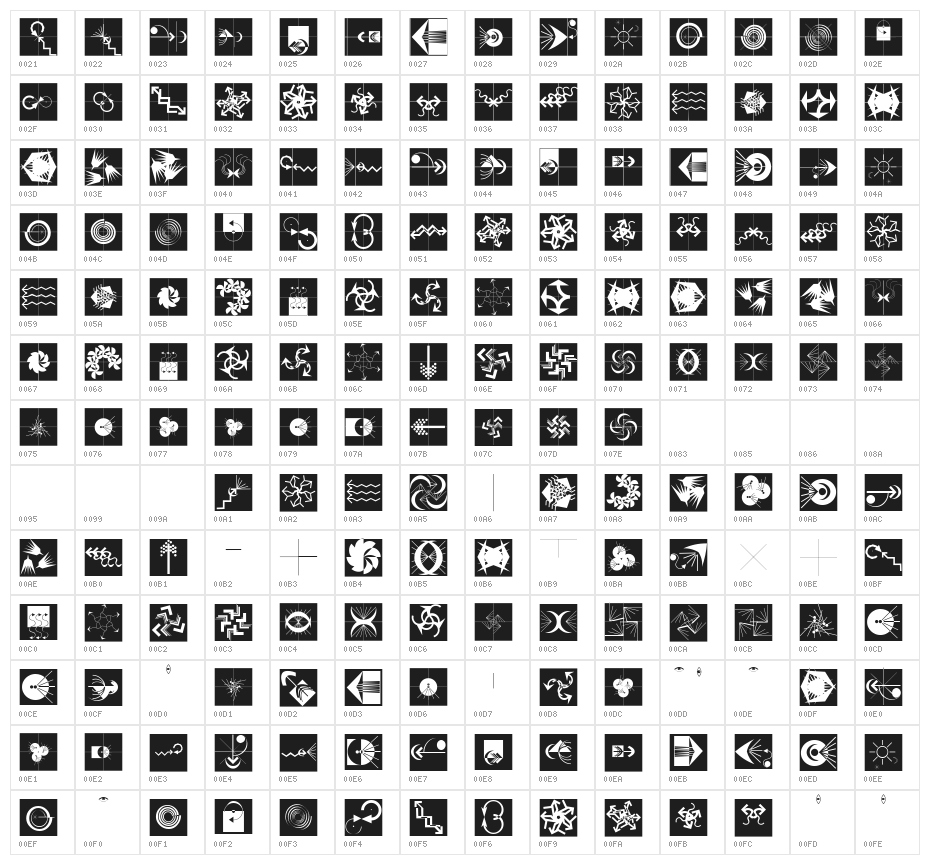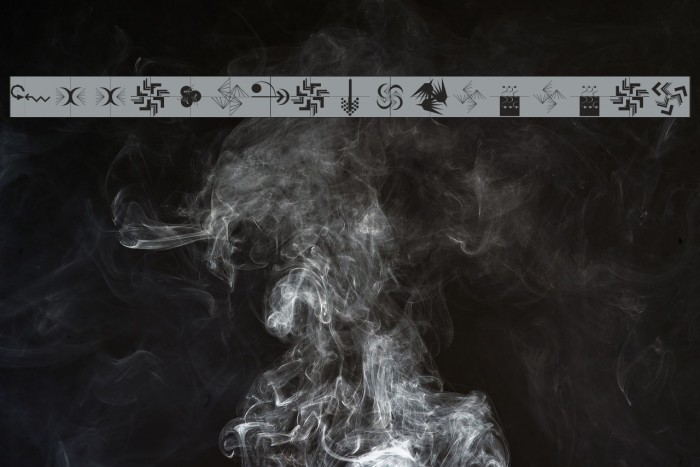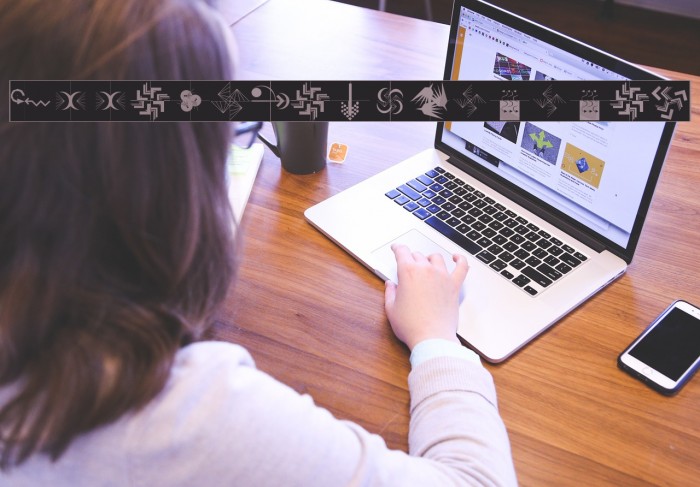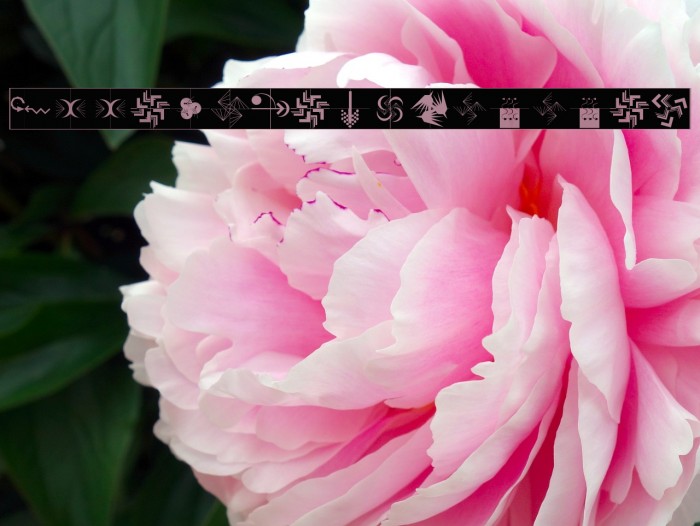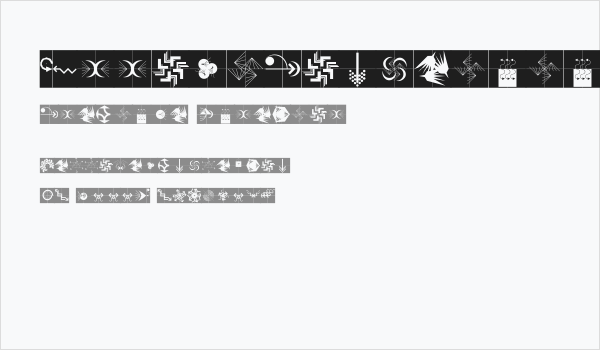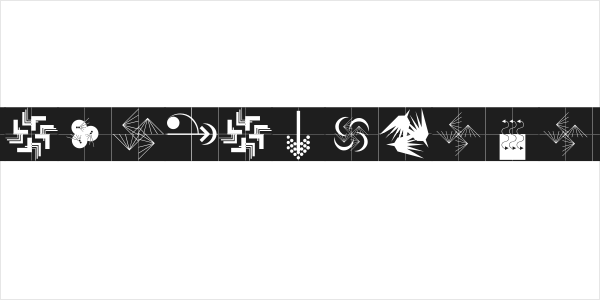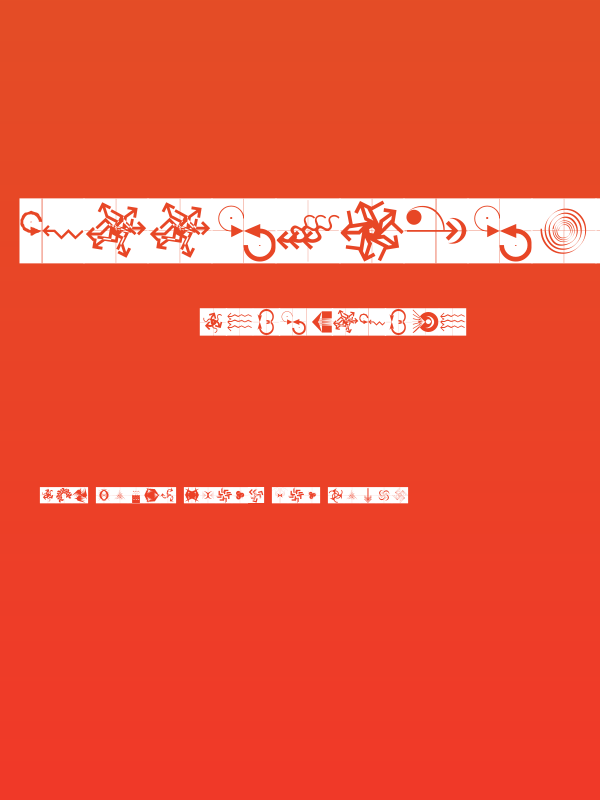
ArrowsCompetition Font
ArrowsCompetition Description
A highly decorative and abstract dingbat font featuring a wide variety of arrow-based symbols, geometric shapes, and intricate patterns. Each glyph is unique, with some resembling spirals, stars, and circuit-like motifs, all rendered in bold, high-contrast white on black.
Overall StyleDecorative, Abstract, Modern
Use CaseIcons, Decorative elements, Visual accents
Proposed ProjectsInfographics, posters, digital art, game UI, icon sets, creative branding.